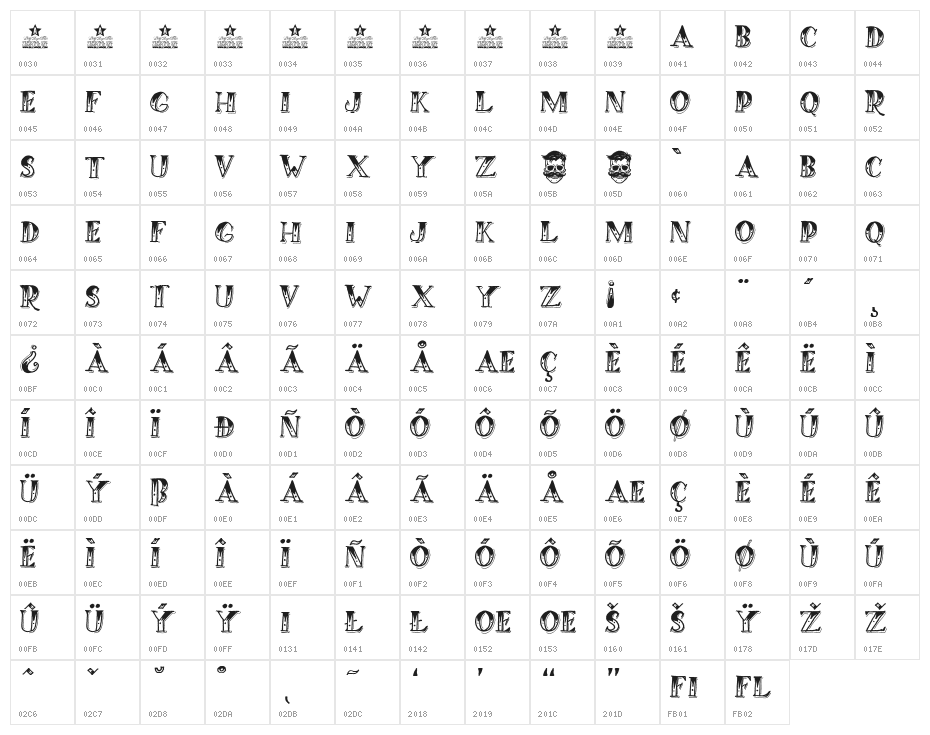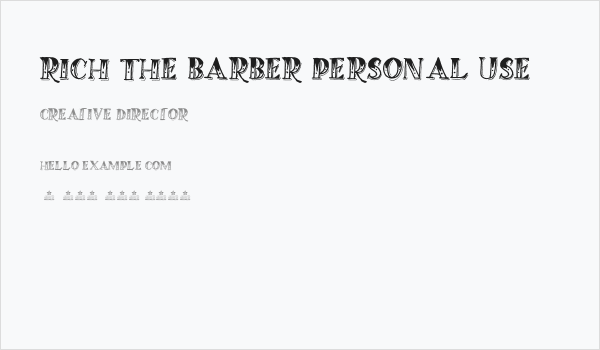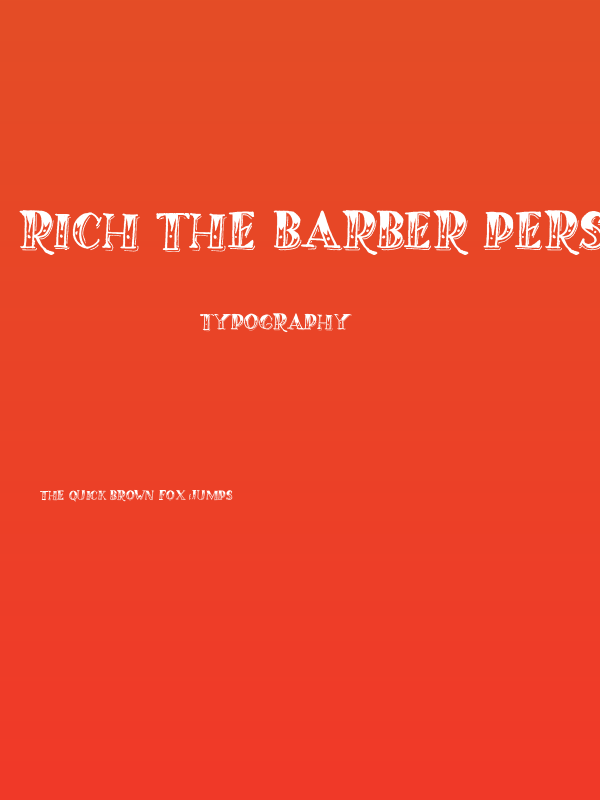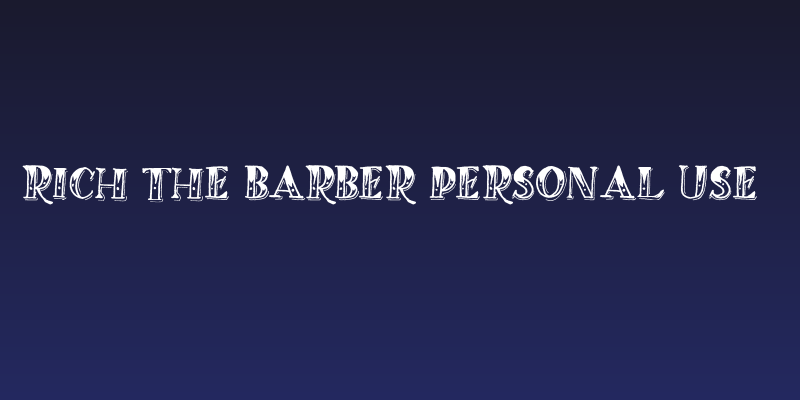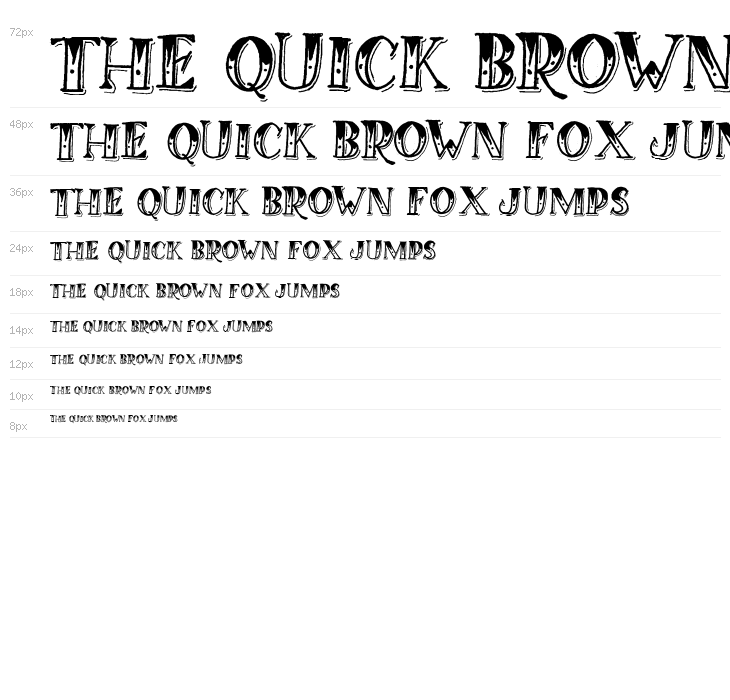
RICH THE BARBER PERSONAL USE Font
RICH THE BARBER PERSONAL USE Description
This font features a bold and dynamic style with a distinct hand-drawn appearance. Each character is crafted with a unique flair, incorporating sharp edges and varying line thicknesses that give it a rugged, artistic look. The uppercase letters are particularly striking, with exaggerated serifs and decorative elements that add to its visual impact. The overall design is reminiscent of vintage signage, making it ideal for projects that require a touch of nostalgia or a bold statement. The font's irregularities and artistic strokes contribute to its charm, making it suitable for creative and expressive designs.
| Overall Style | Vintage, Artistic |
| Proposed Projects | Ideal for vintage-themed posters, creative branding, artistic book covers, and expressive headlines. |